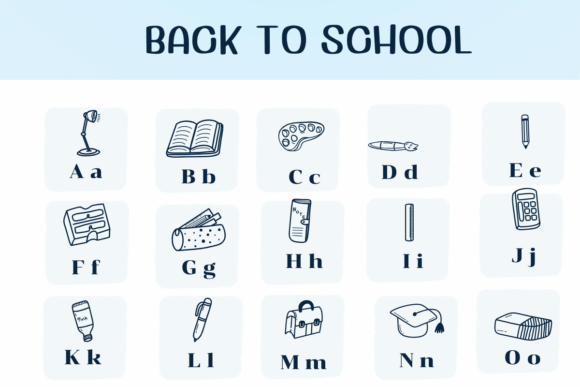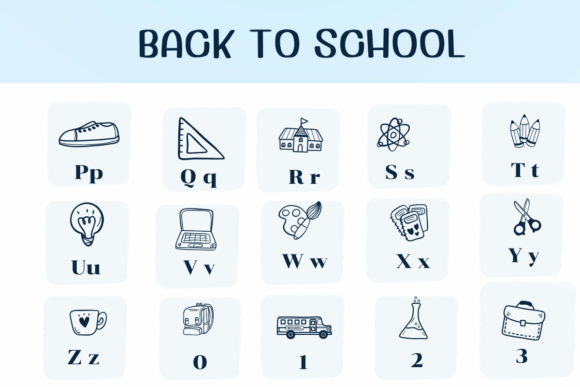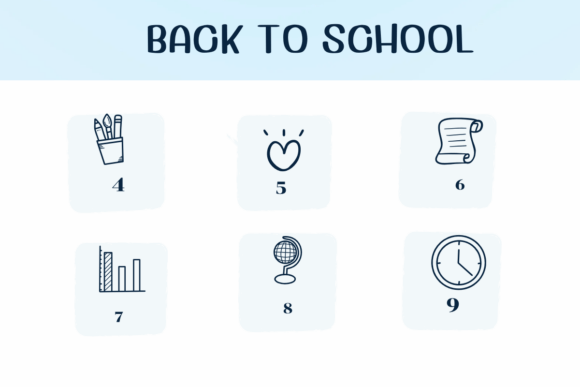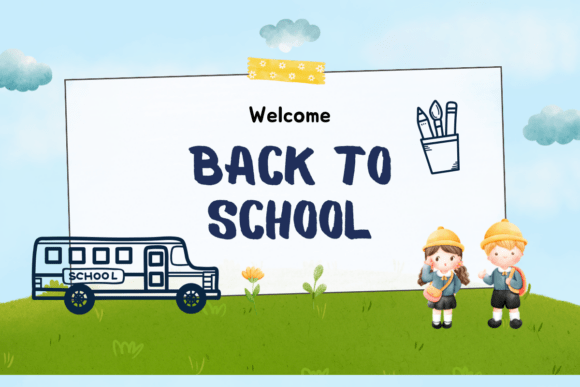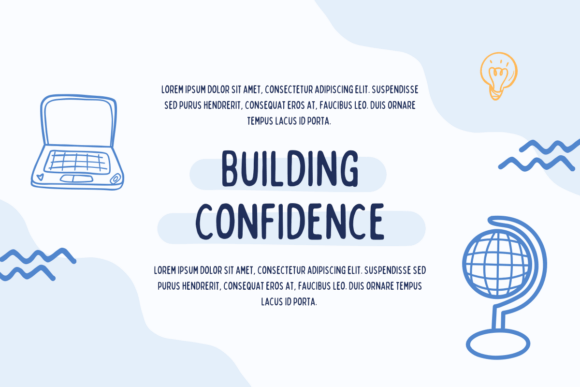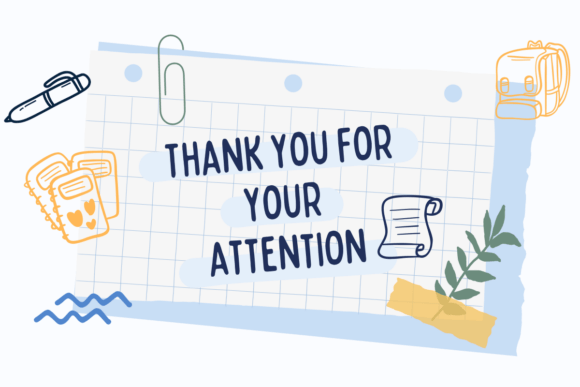
Get Ready to Grade A with the Back to School Font
As a designer, have you ever been brainstorming ideas for a project, only to be struck by the perfect concept at the most unexpected moment? Perhaps it was a stroll through a quiet neighborhood, or a conversation with a friend that sparked a creative epiphany. Whatever the trigger, you know the feeling of excitement that comes with a fresh idea.
That’s exactly what happens when you discover the Back to School Font, a delightful collection of hand-drawn school-themed doodles that bring any project to life. With its adorable illustrations of books, backpacks, pencils, and lab equipment, this font is perfect for classroom decorations, worksheets, school planners, educational printables, and teacher resources.
As a designer, you’ll appreciate the versatility of the Back to School Font, which can be used to add a touch of whimsy and personality to any project. Whether you’re working on a school-themed design or just want to add some fun to a client project, this font is sure to hit the mark.
Key Features of “Back to School Font”
- Font Family: The font is a unique, hand-drawn design with a casual and playful feel, making it perfect for back-to-school themes and educational materials.
- Size: The font comes in multiple weights, ranging from 100 to 900, providing flexibility for different design needs.
- Resolution: The font is designed to be scalable, with clear and crisp text at resolutions up to 300 DPI.
- Unique Characteristics: The font features a mix of rounded and pointed letters, giving it a friendly and approachable feel. It also includes a range of swashes and alternates for added creativity.
- Language Support: The font supports a wide range of languages, including Latin, Cyrillic, and Greek, making it suitable for international designs.
Back to School Font Review
Overall, I’d say the “Back to School Font” has some great qualities that make it perfect for a specific type of project.
- Fun and playful vibe: The font has a great energy to it, making it perfect for projects that need a youthful and adventurous feel.
- Unique design elements: The font includes some really interesting design elements, like the use of bold lines and rounded shapes, that set it apart from other fonts.
- Good for title and headings: The font is really effective when used for titles and headings, adding a pop of color and energy to the design.
- Limited character set: The font only includes a limited set of characters, which can make it difficult to use for projects that require a full set of punctuation and symbols.
- Not suitable for body text: The font is a bit too bold and playful for use as body text, which can make it difficult to read.
- May not be accessible: The font’s unique design elements may not be accessible to all users, particularly those with visual impairments.
Overall, I’d say the “Back to School Font” is a great choice for projects that need a fun and playful vibe, but it may not be the best choice for more serious or technical projects.
Tips for Getting the Most Out of “Back to School Font”
Use “Back to School Font” to create eye-catching posters and flyers for school events and activities.
Experiment with different font sizes and styles to create a unique and engaging design.
Combine “Back to School Font” with other design elements, such as images and graphics, to create a visually appealing design.
Back to School Font is ideal for:
Creating posters and flyers for school events and activities.
Designing invitations and announcements for school functions.
Adding a playful touch to educational materials and presentations.